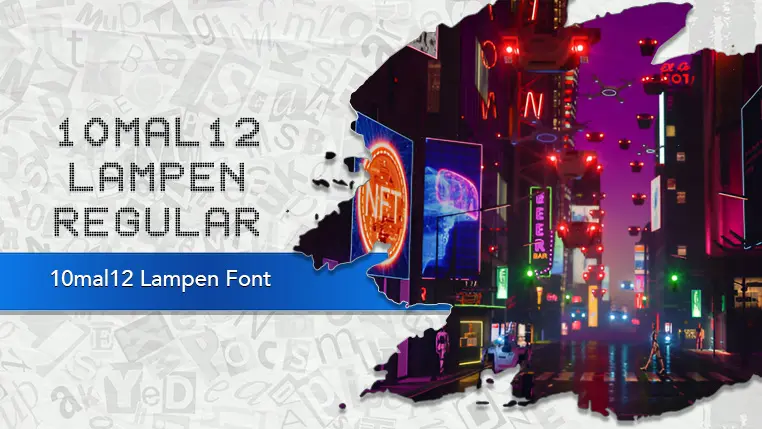
The 10mal12 Lampen font family may be ideal for you if you enjoy working on an artistic design project. The lively, expressive look of this typeface, which was created by Peter Wiegel, makes it ideal for You can use this in Retro Gaming perfect for titles, menus, or on-screen text in games designed to look like classic arcade games, 8-bit, or early console games, Digital Displays Simulation, Sci-Fi / Cyberpunk Themes, Music Album Art. and other light-hearted visual projects.
Regular are the one primary font styles of the 10mal12 Lampen font family. You may build dynamic, visually appealing text layouts with the distinct flair that each style offers. With crisp, readable lines and a relaxed tone.